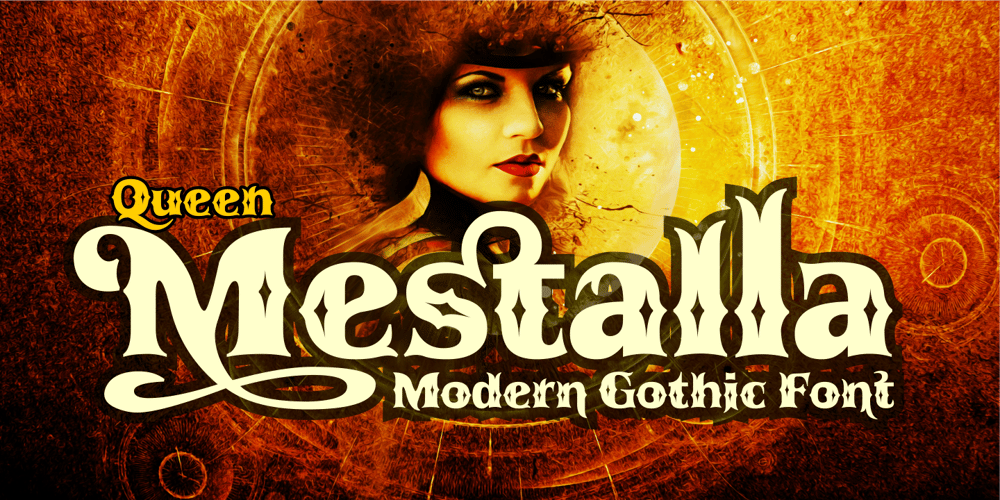
Queen Mestalla Font Family was designed by Ahmad Zulfikar Ali and published by ZetDesign. Queen Mestalla contains 2 styles and family package options. Queen Mestalla is a sherif font in gothic style with a good thickness making this font look bold and eye catching. This font is perfect for designing t-shirts, posters, music albums, magazines, billboards, and graffiti. This font is available in 2 style options, regular and italic, also comes with many alternative style options making it easy to create more awesome designs.